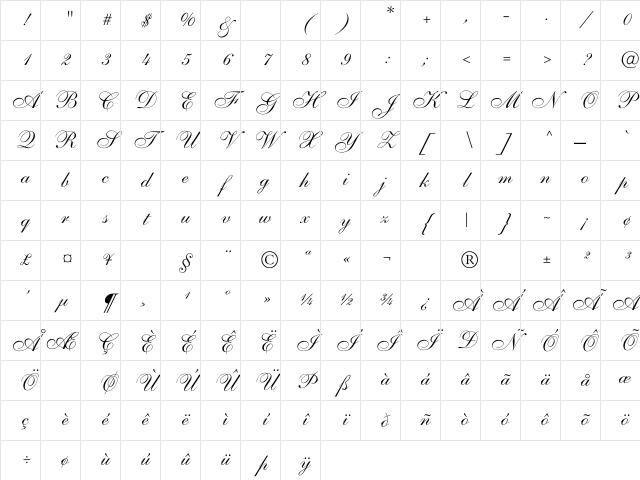
Pretty Lady Regular
Design Context for Pretty Lady
Pretty Lady is a composed and adaptable typeface that performs quietly and consistently across a wide range of design contexts.